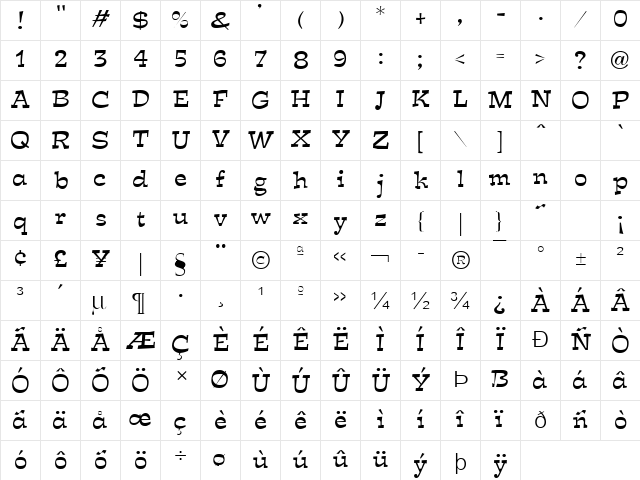
Expose Thin Normal
Design Context for Expose Thin Typeface
Expose Thin takes a measured approach to typography — its balanced proportions and neutral character make it a reliable workhorse for both digital and print work. Its slender proportions lend an understated elegance to any composition.